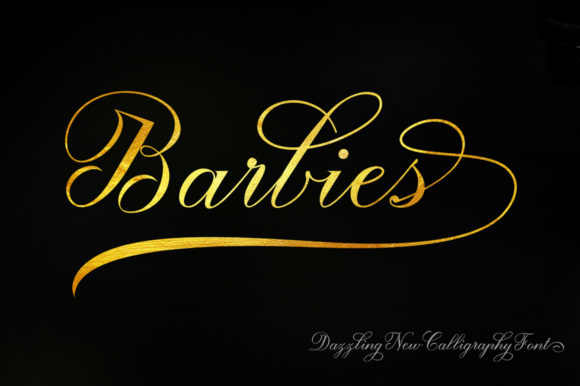
Immerse yourself in the world of elegance and charm with Barbies Script Font, a breathtaking calligraphy font that will captivate your senses. This enchanting script, inspired by the grace of calligraphy, boasts an alluring italic style that dances across the page, leaving a trail of beauty in its wake.
With its meticulously crafted swashes, Barbies Script Font adds a touch of sophistication and allure to your designs, making them stand out from the ordinary. Whether you're a seasoned designer or just starting your creative journey, this font is the perfect tool to elevate your projects to new heights.
Unleash your creativity and let Barbies Script Font guide you through a world of possibilities. From logos that exude elegance to branding projects that radiate charm, this font is the key to unlocking your design dreams.
Imagine your products adorned with the delicate swashes of Barbies Script Font, creating a sense of luxury that attracts customers like moths to a flame. Your designs will shine with a timeless allure, leaving a lasting impression that lingers in the minds of your audience.